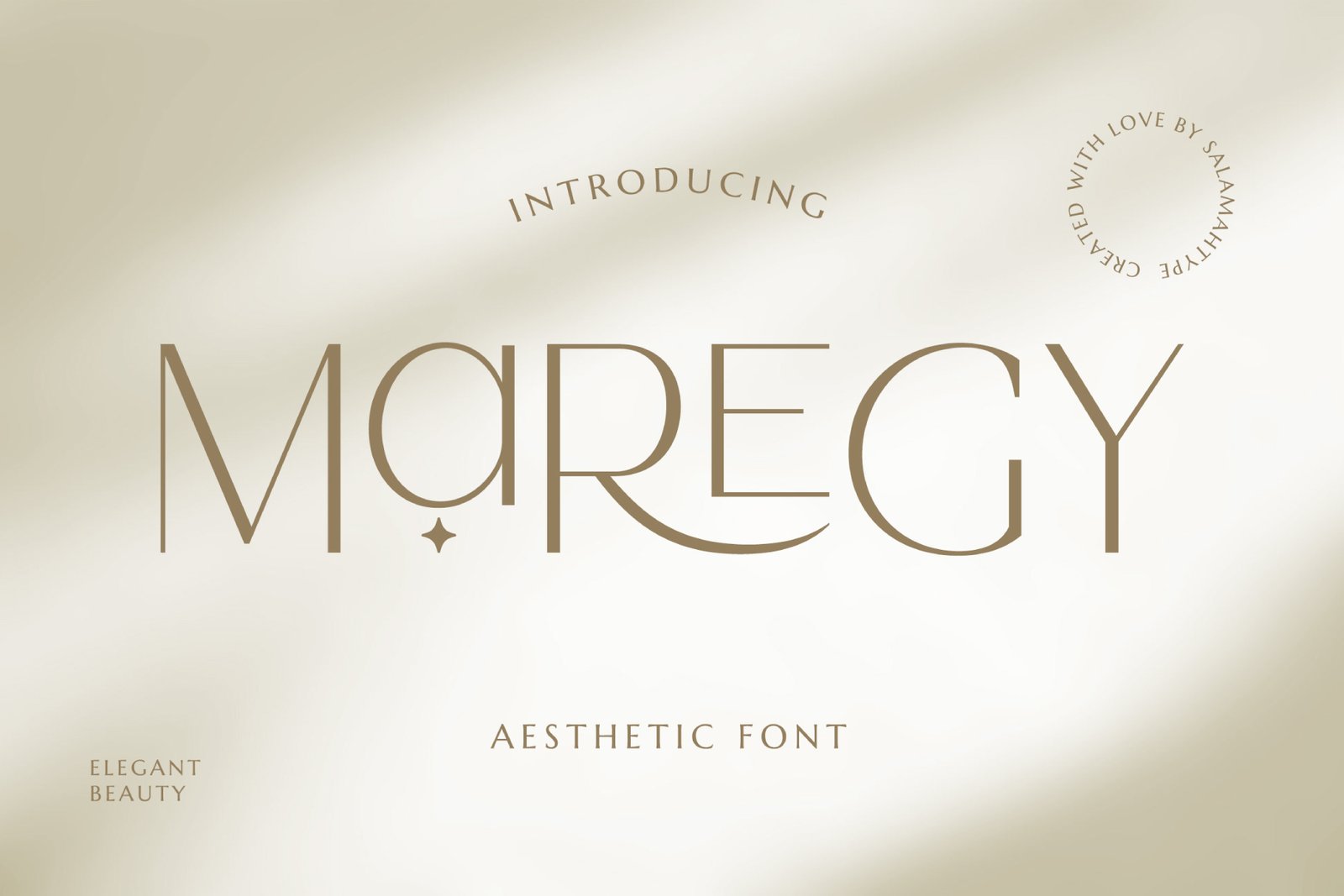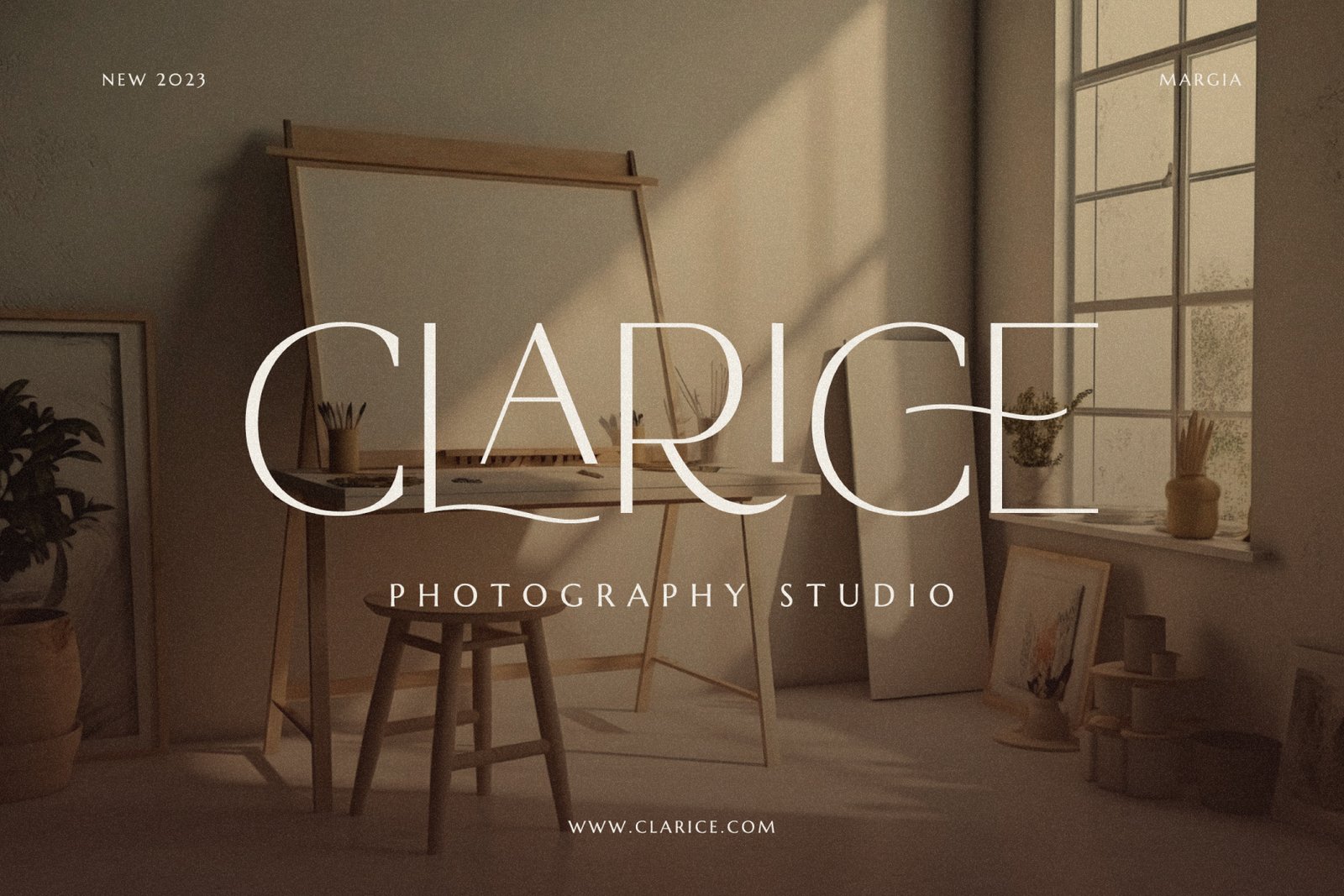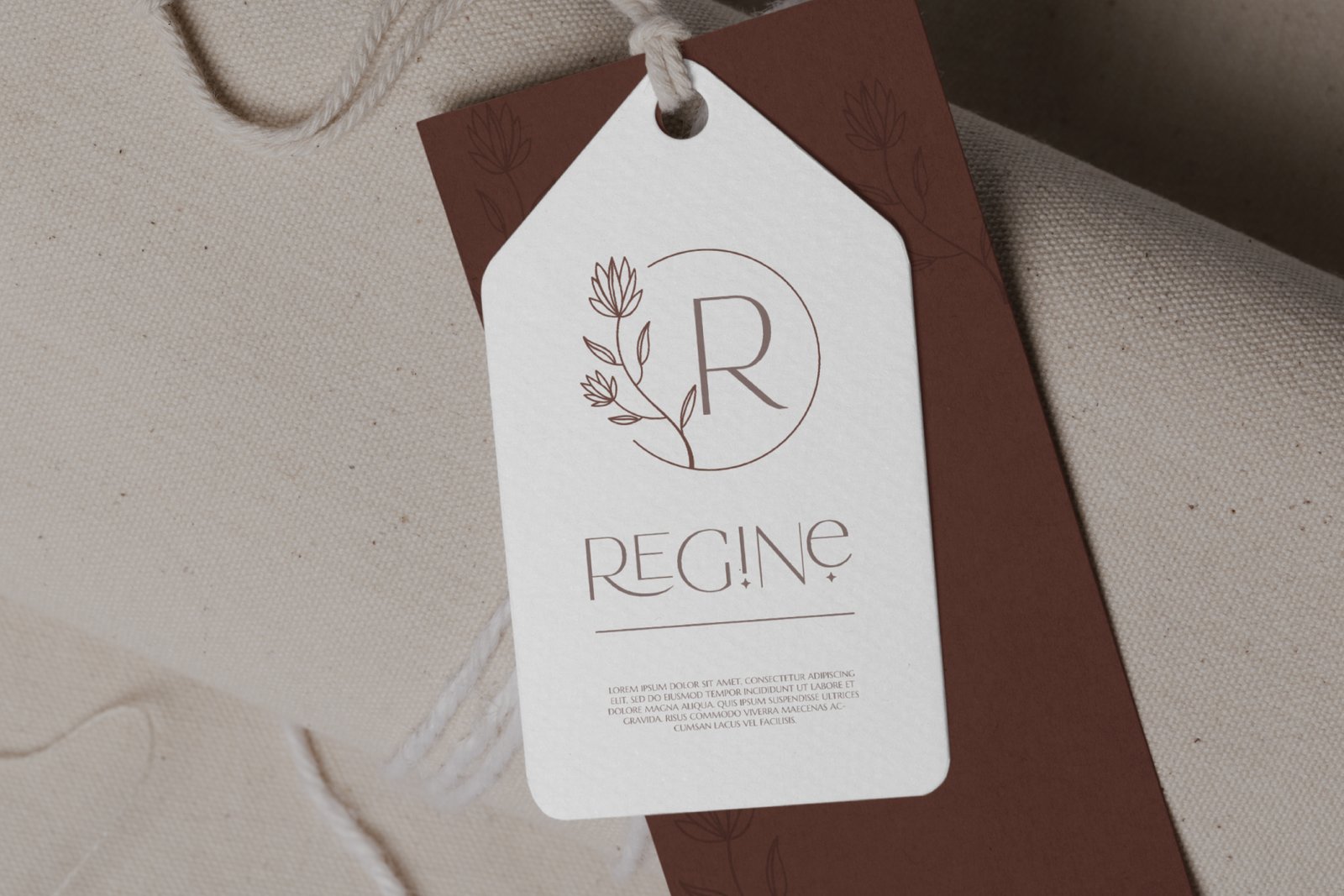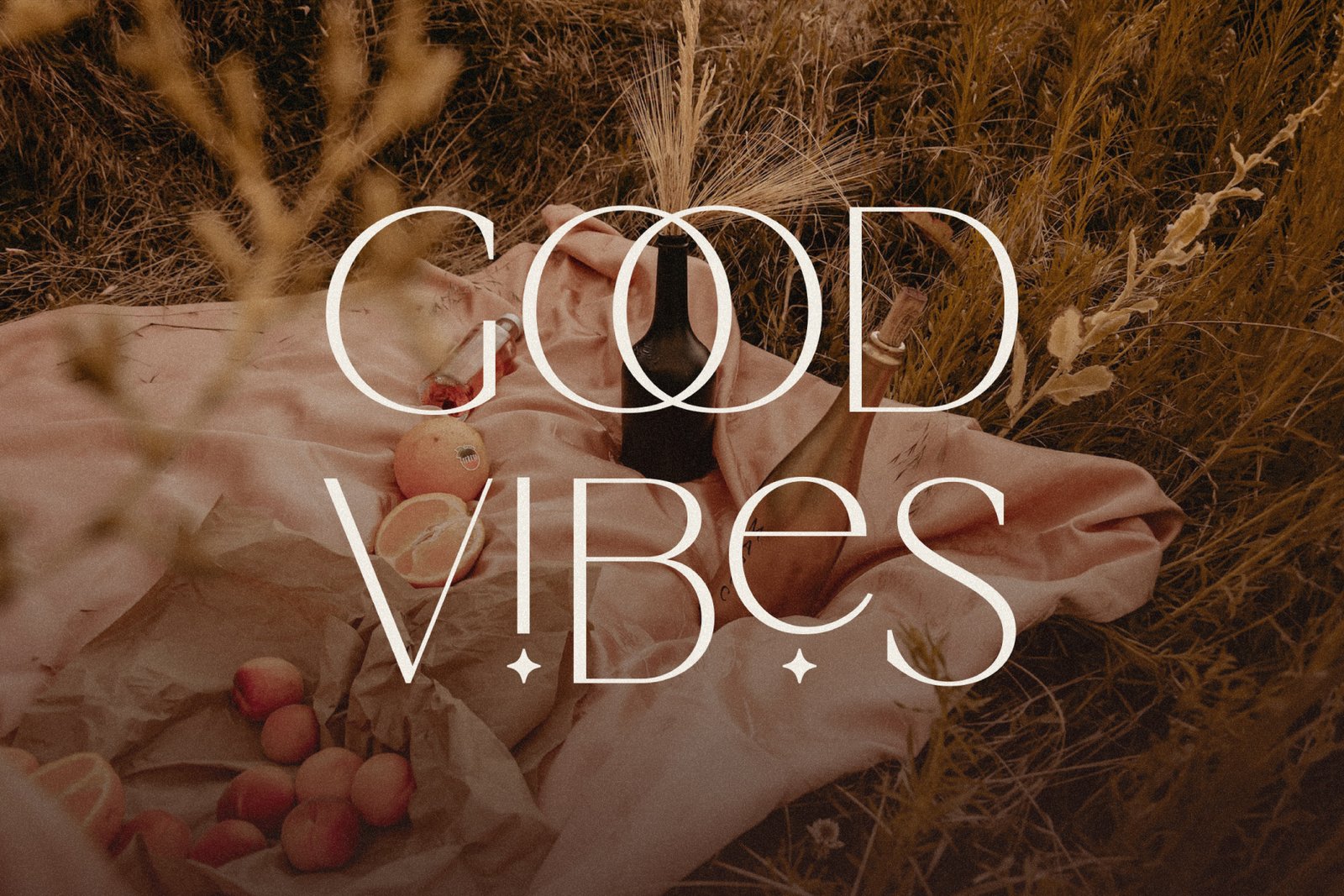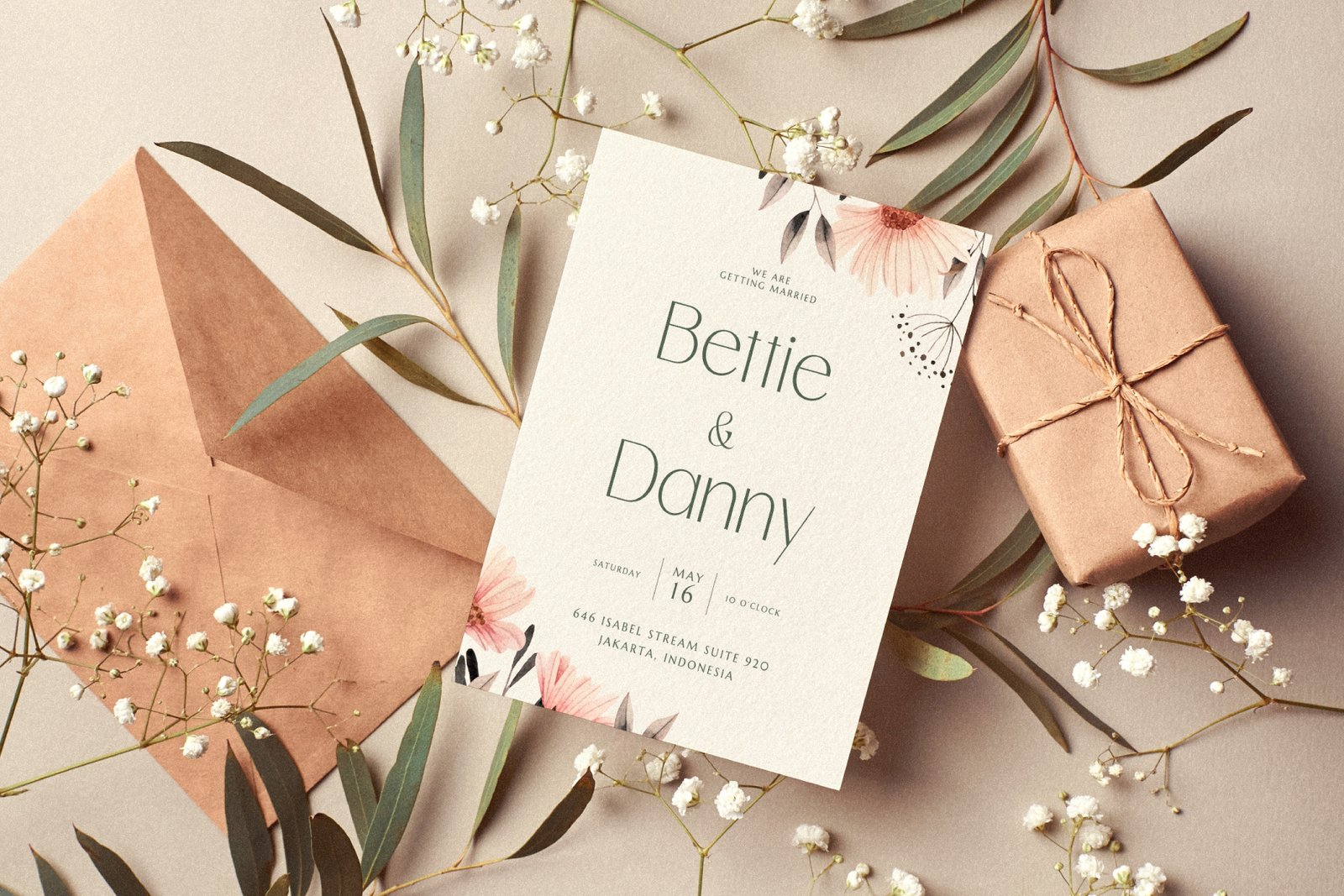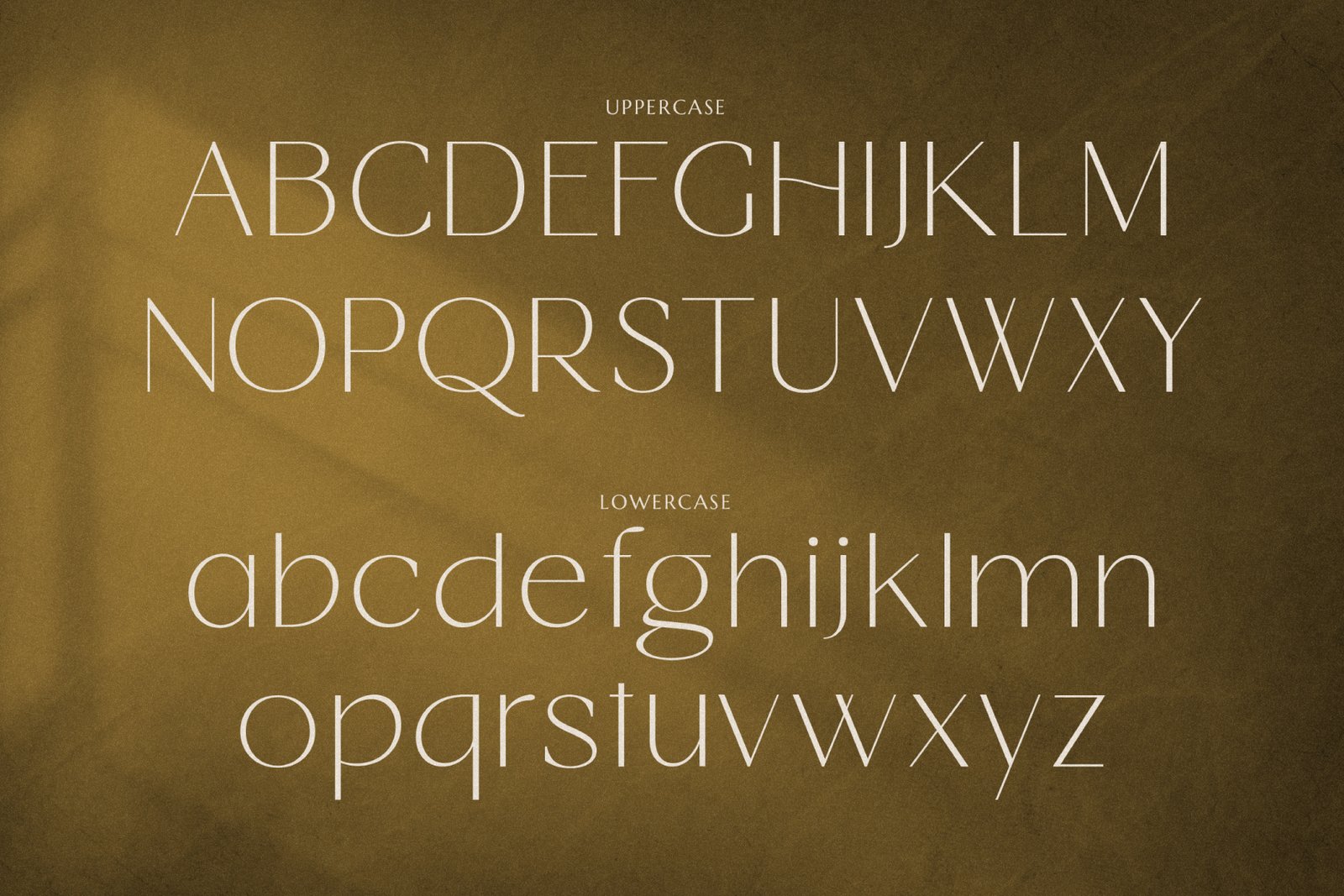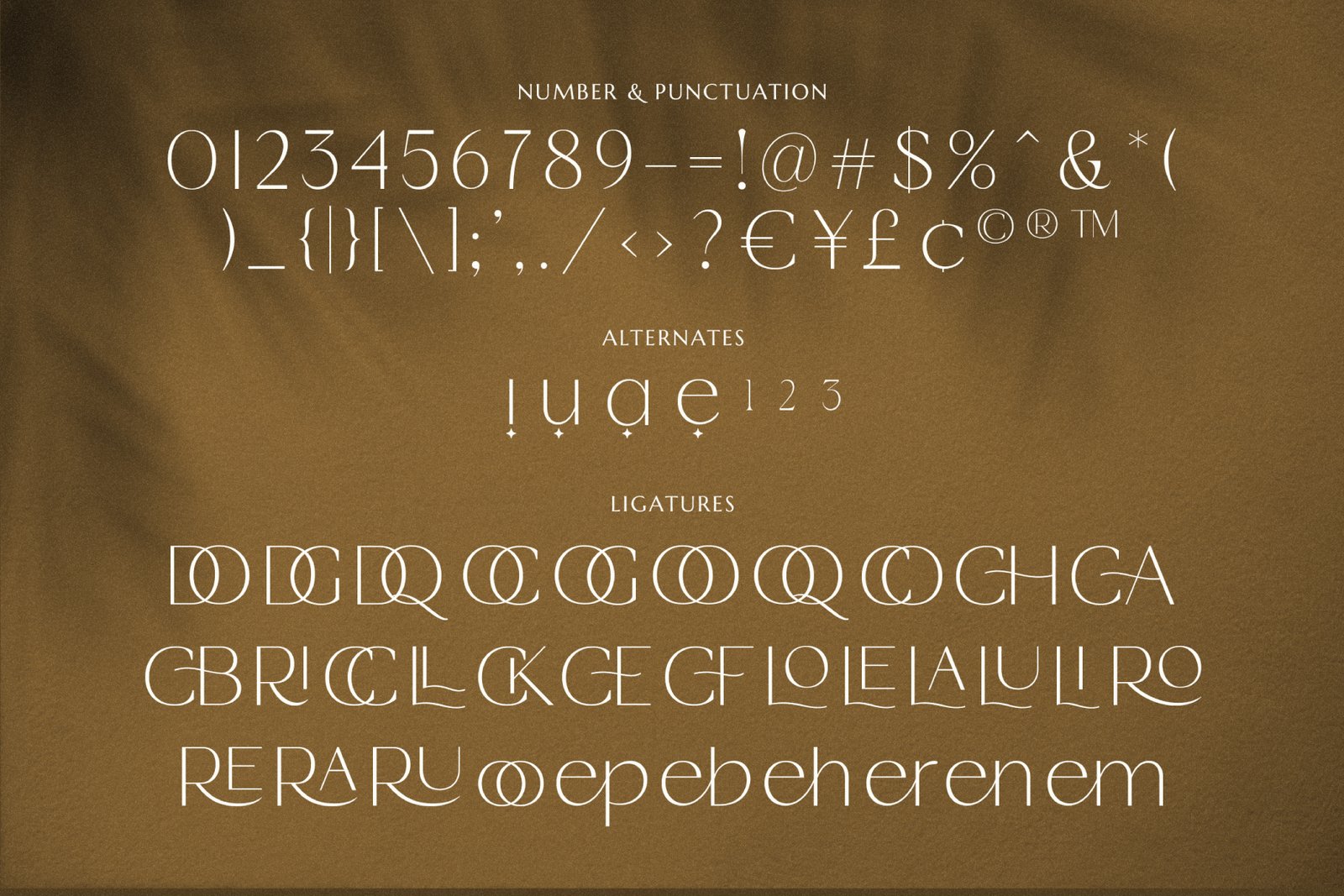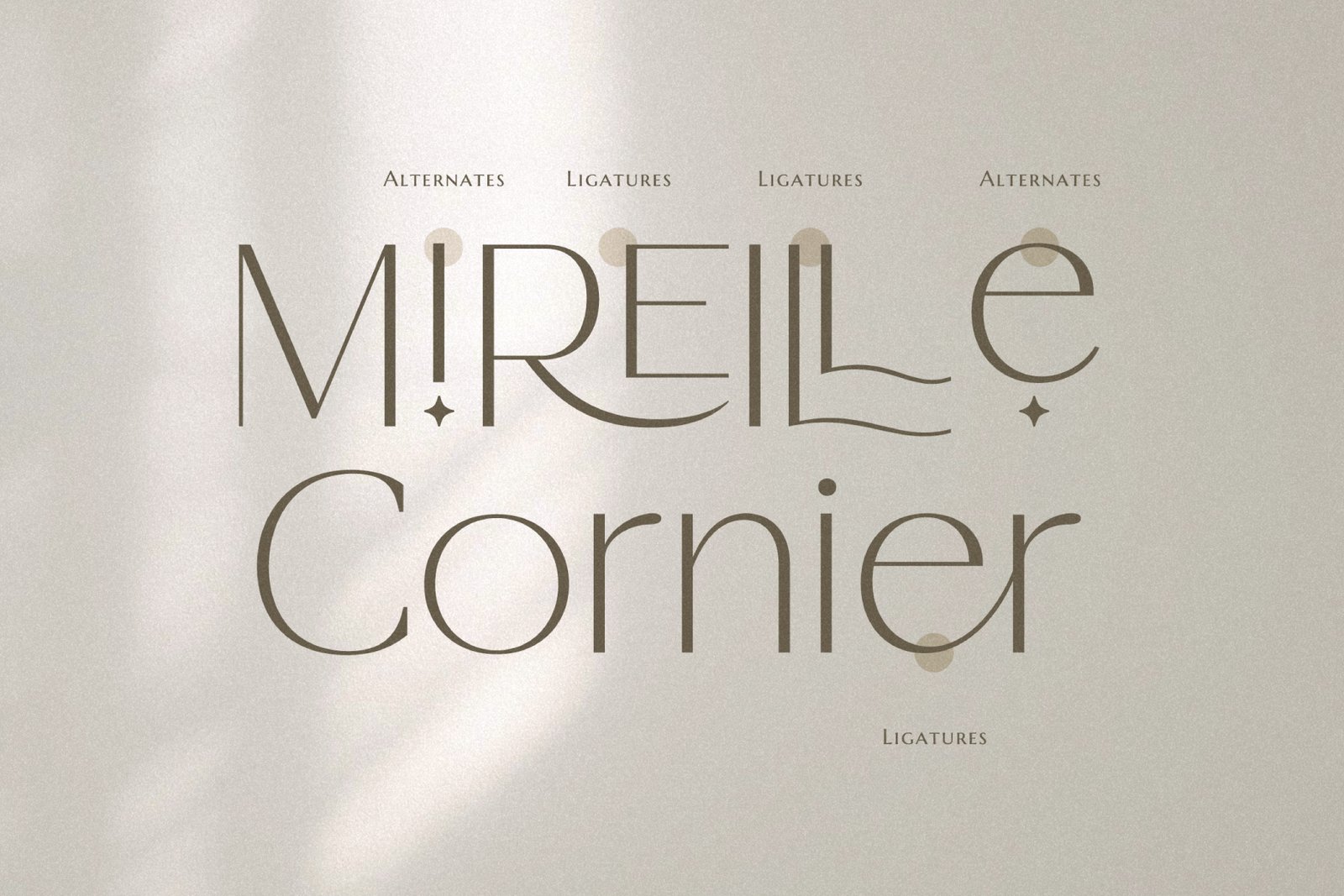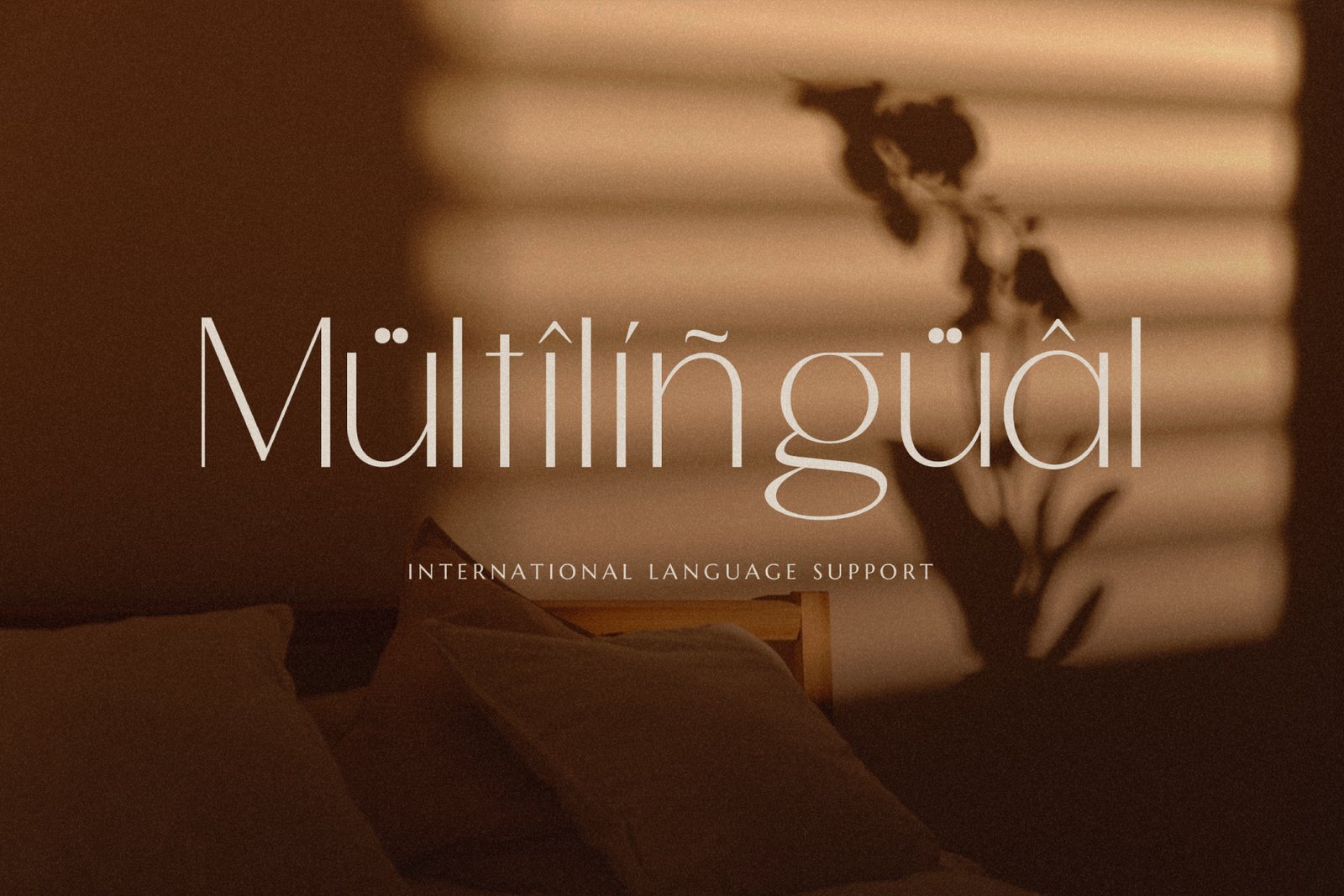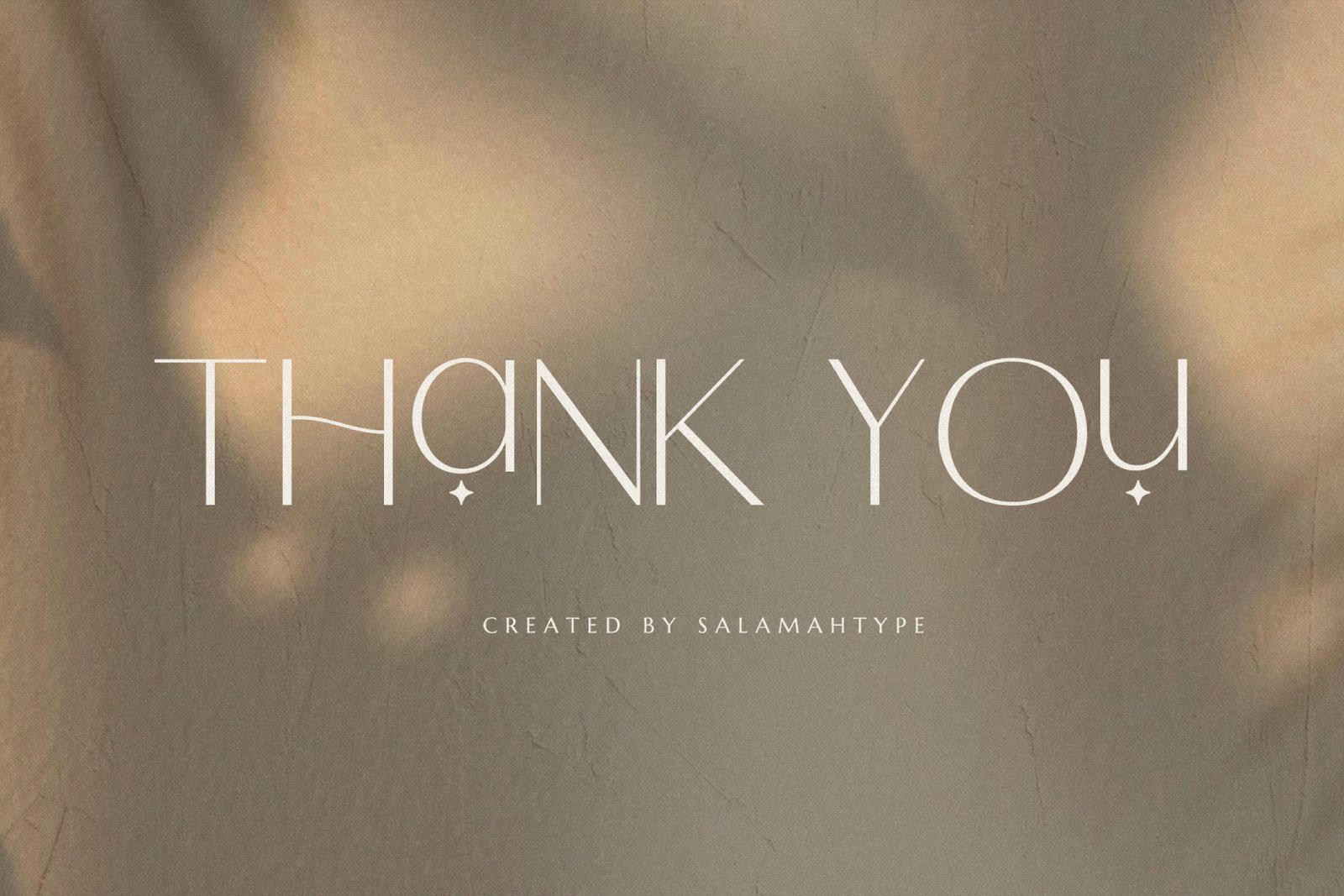
- Maregy – Elegant Sans Serif
MAREGY is a modern sans-serif font with an elegant style. This font is perfect for branding projects, logos, social media posts, advertisements, product packaging, wedding invitations, product design, labels, photography, watermarks, stationery, and more.
Features :
- Uppercase and lowercase
- Punctuation and symbols
- Multilingual support
- Ligatures
- Alternates